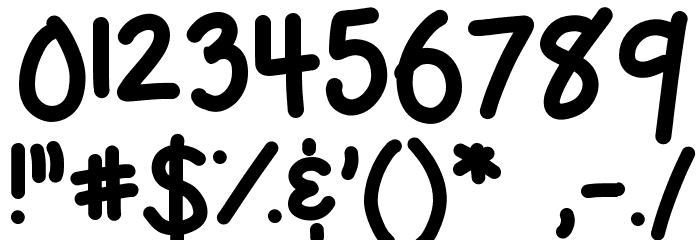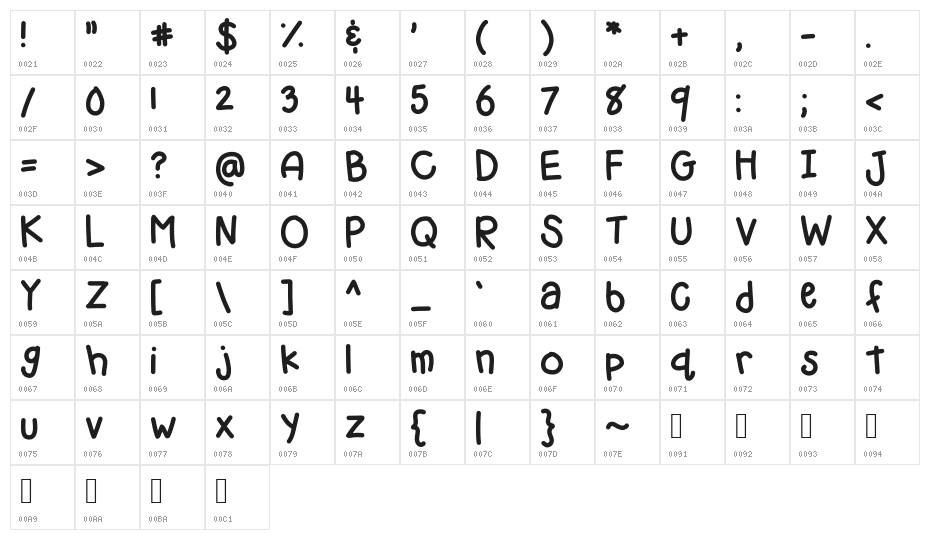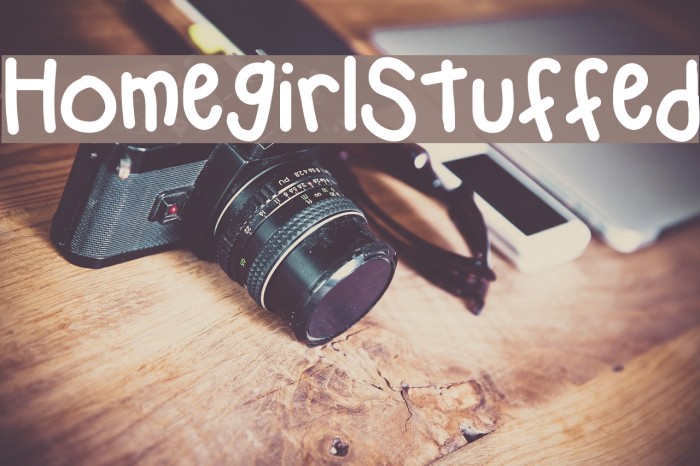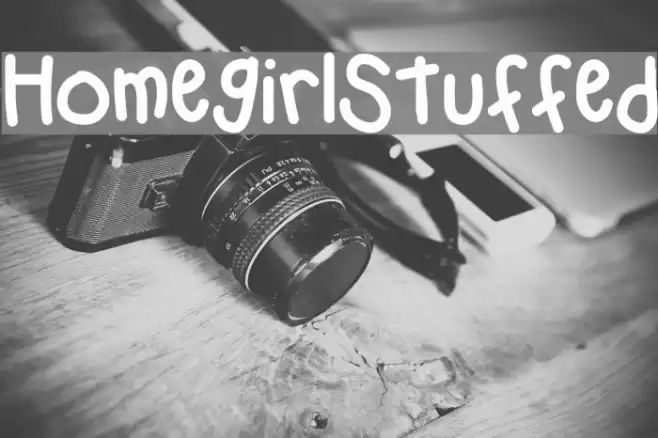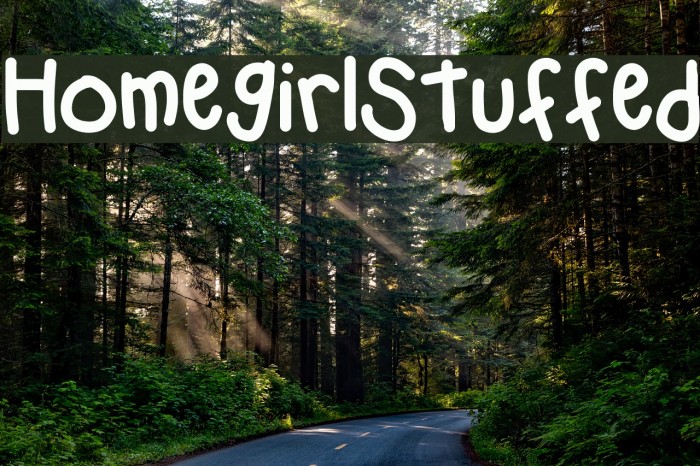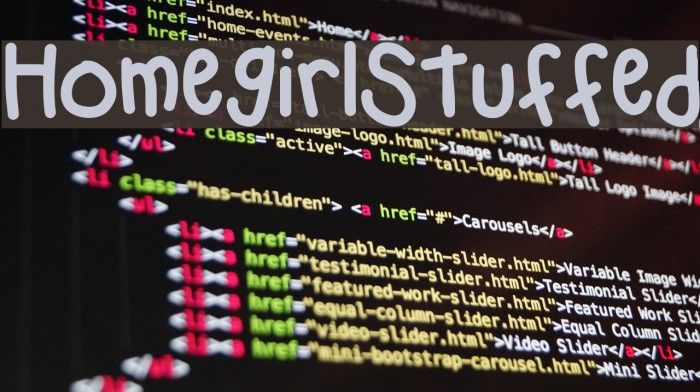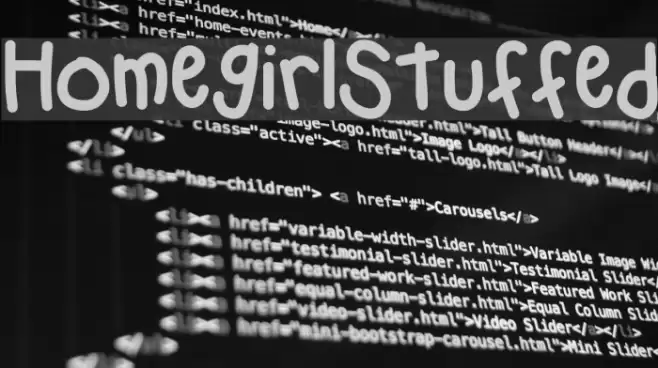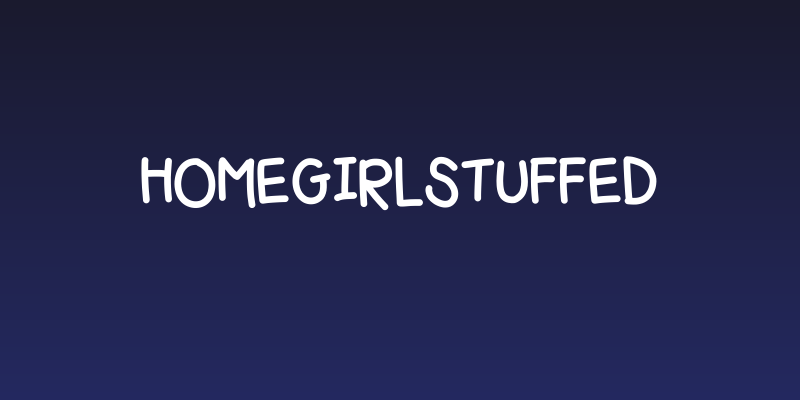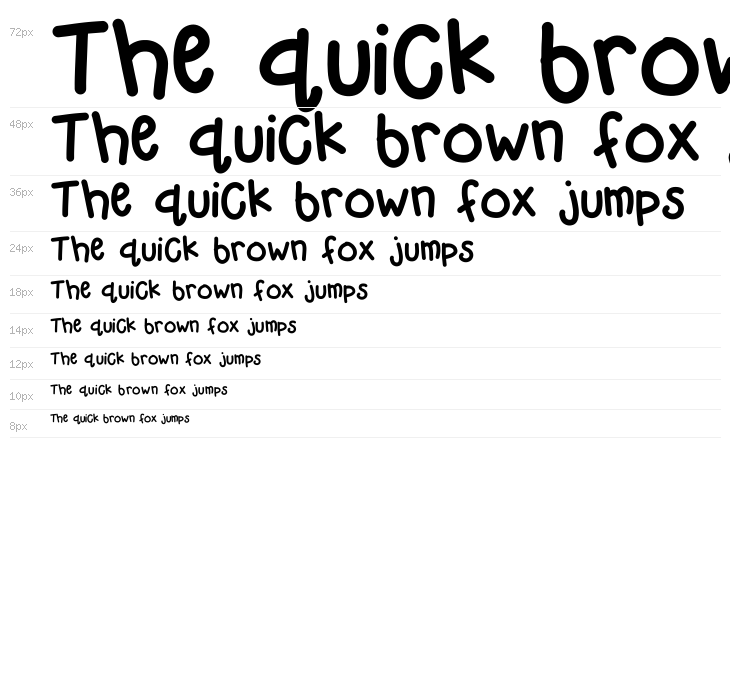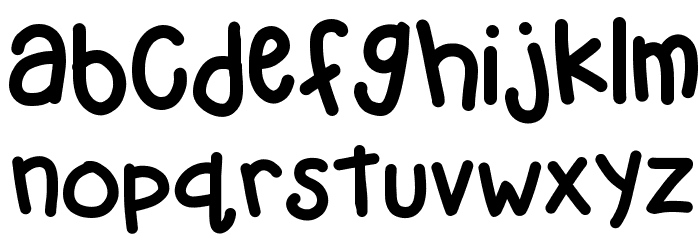
HomegirlStuffed Font
HomegirlStuffed Description
This playful and bold font features a handwritten style with rounded edges and a casual appearance. The letters are slightly irregular, adding a whimsical and friendly touch to the text. The uppercase and lowercase letters maintain a consistent style, with a noticeable thickness that gives the font a stuffed look. The numerals and special characters follow the same design, ensuring uniformity across all characters. This font is ideal for projects that require a fun and approachable aesthetic.
| Proposed Projects | Ideal for children's books, playful branding, greeting cards, and informal invitations. |